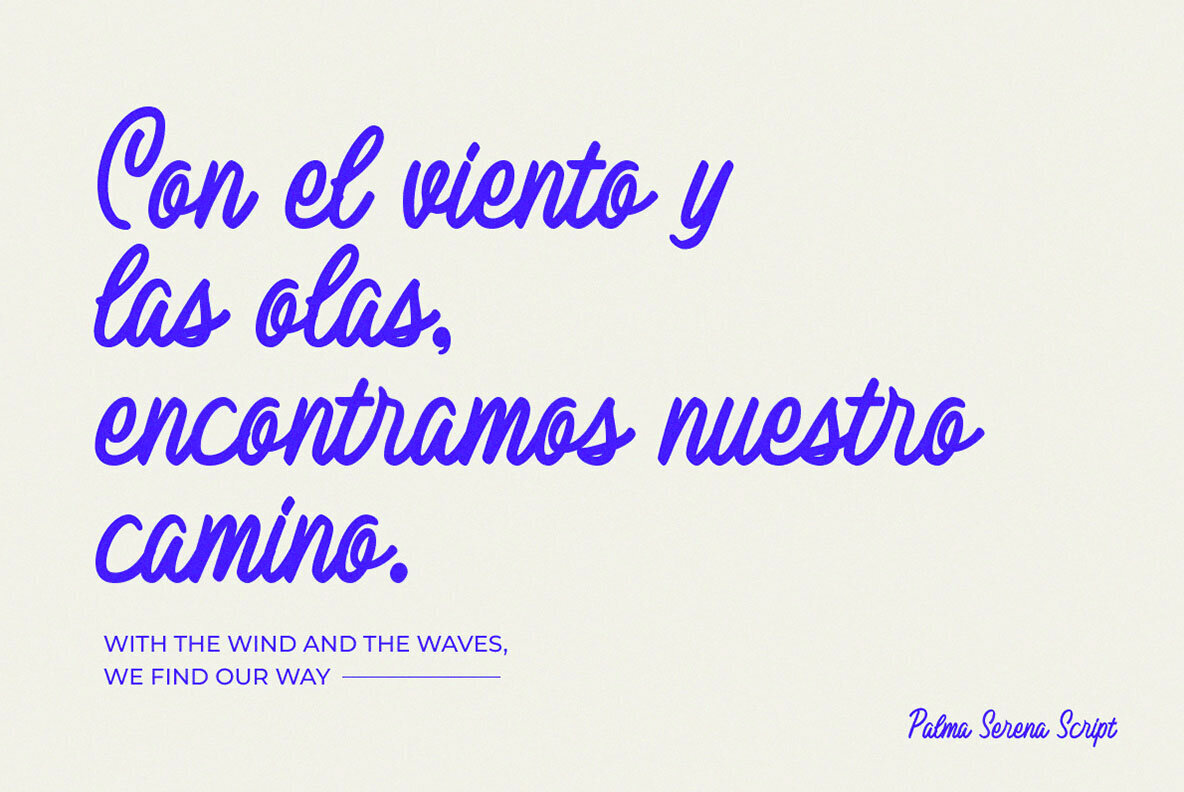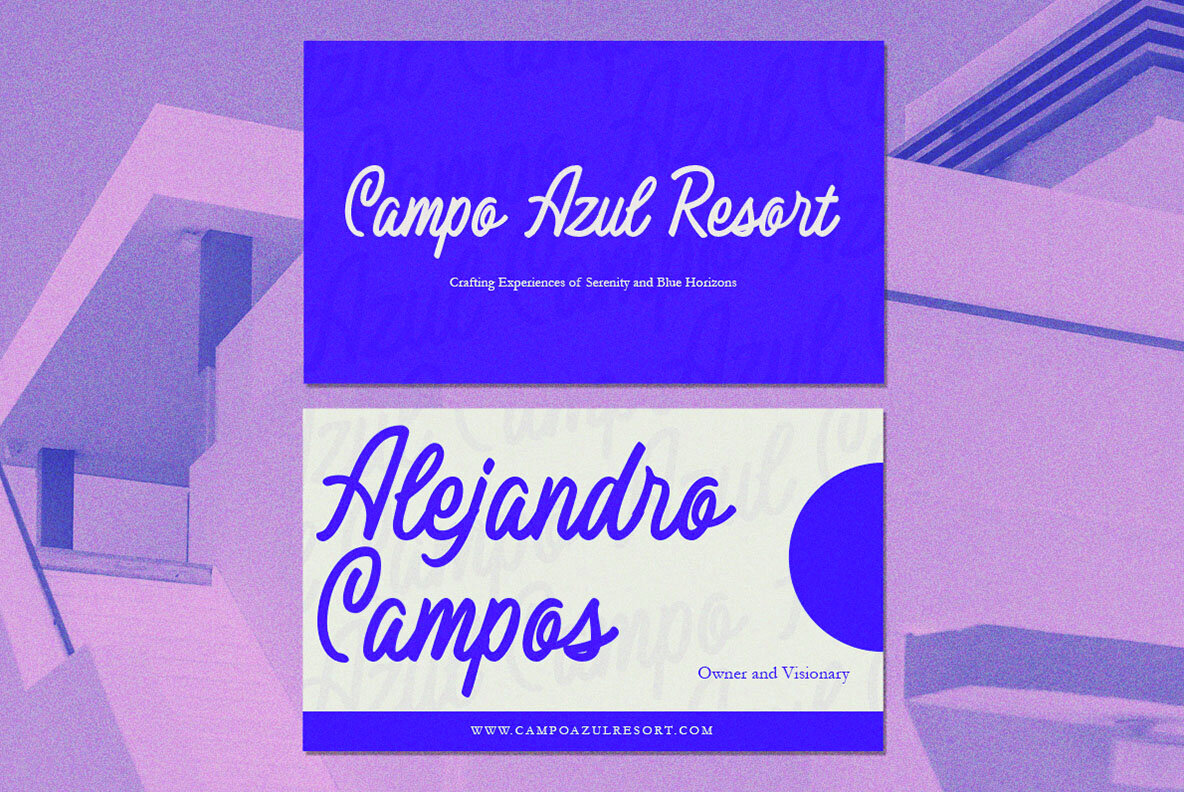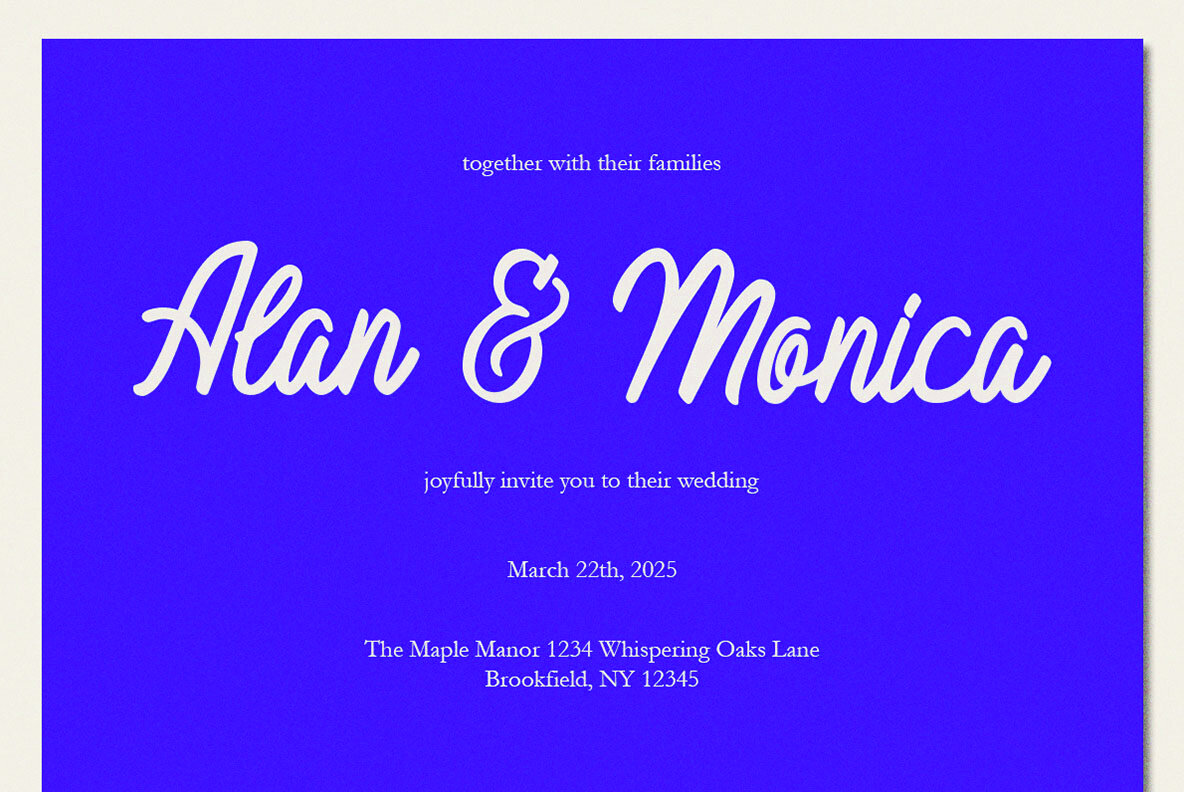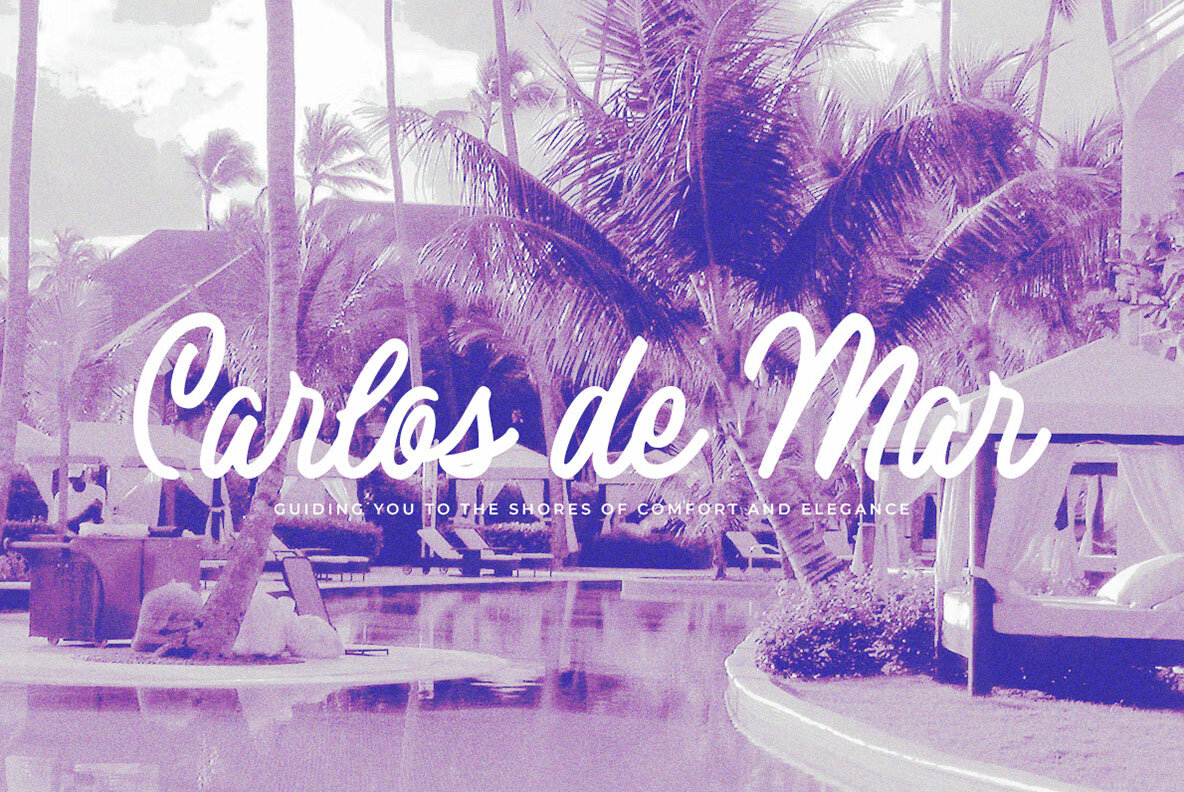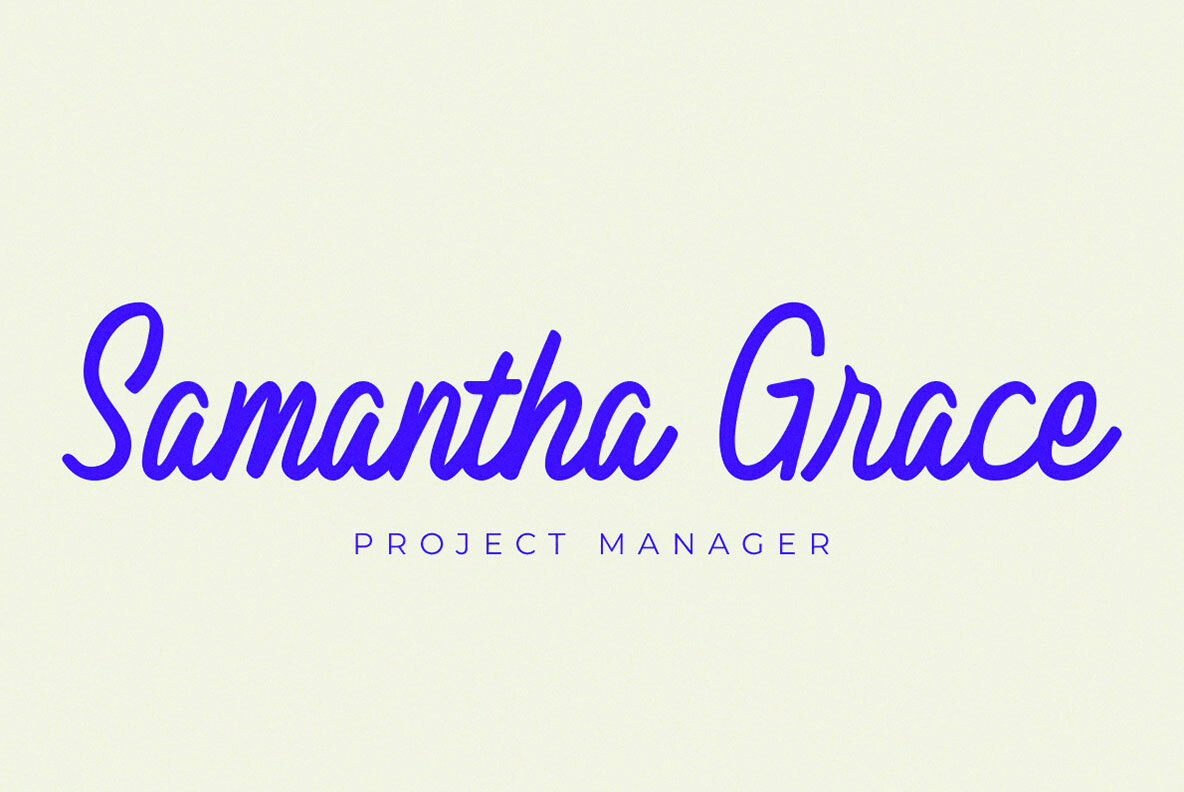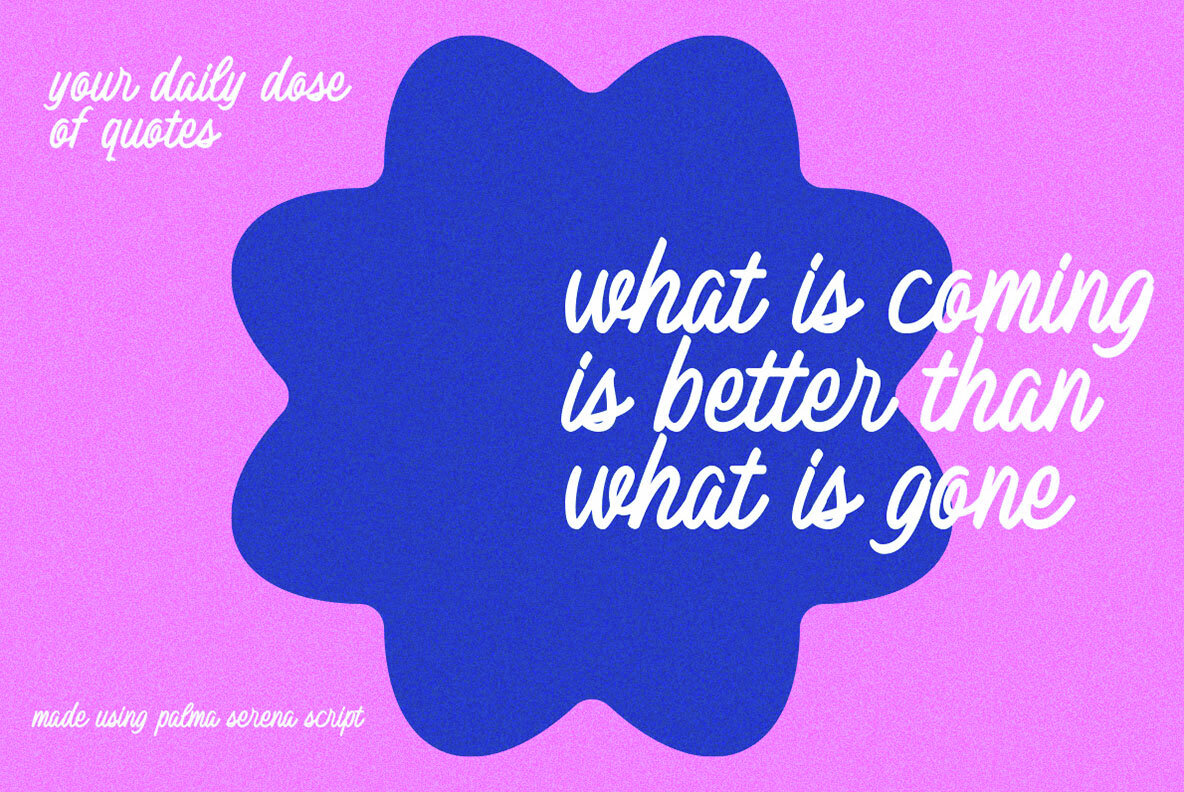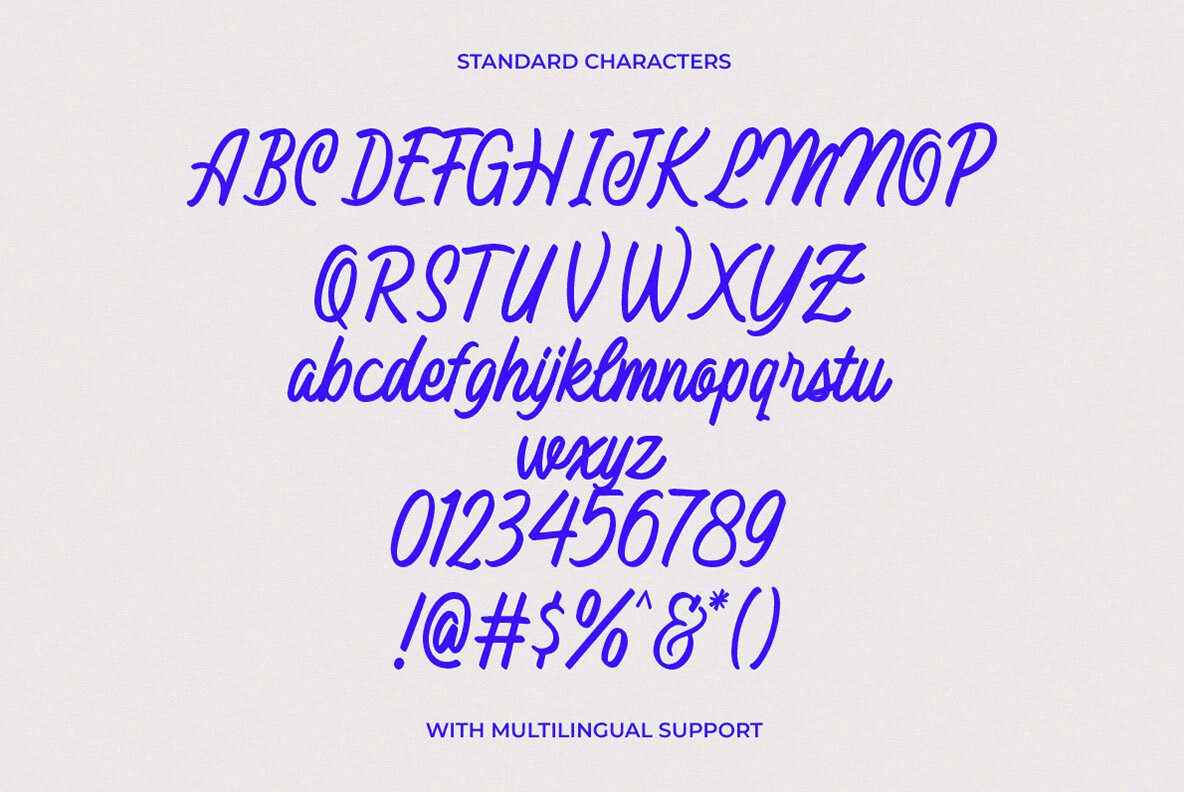
Palma Serena Font
Palma Serena Regular
Palma Serena is a handwritten script font that radiates elegance and warmth, making it ideal for creating timeless and personable designs. With its smooth curves and organic flow, this font is perfect for branding, invitations, greeting cards, logo designs, and more. Its delicate strokes give it a sophisticated yet approachable look, Features: We highly recommend using a program that supports OpenType features and Glyphs panels like many of Adobe apps and Corel Draw, so you can see and access all Glyph variations.